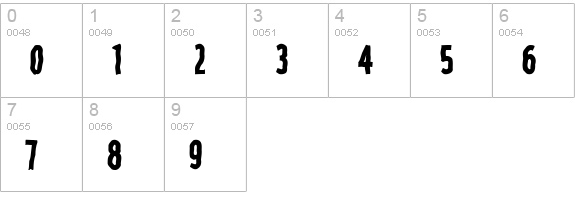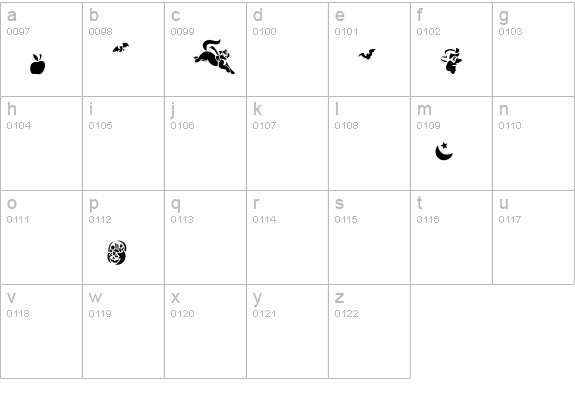
Spooky Regular Font Details
Spooky Regular is the standard, neutral variant in the Spooky typeface family \xE2\x80\x94 well suited to general body text, paragraphs, and standard typographic work.
Spooky Regular font is the perfect choice for those seeking a touch of eeriness and mystery in their designs. With its unique and hauntingly beautiful letterforms, this font is sure to captivate and intrigue. Whether you're working on a Halloween-themed project, a horror movie poster, or simply want to add a spooky twist to your designs, Spooky Regular font is the ultimate go-to option. This font features a perfect balance between sophistication and creepiness, making it ideal for a wide range of creative projects. Its intricate details and carefully crafted curves create an atmosphere of enchantment and dark allure. Each letter is meticulously designed to embody the essence of all things spooky, creating a truly magical and haunting visual experience. But the best part? Spooky Regular font is completely free! Yes, you read that right. This captivating font is freely available to download at FontsMarket.com, making it accessible to designers and enthusiasts alike. Whether you're a professional graphic designer or a hobbyist looking to add a touch of magic to your personal projects, Spooky Regular font is the perfect choice. So, don't miss out on the opportunity to transform your designs and unleash your creativity with Spooky Regular font. Download it today, for free, at FontsMarket.com and get ready to embrace the dark and enchanting world of spooky typography.